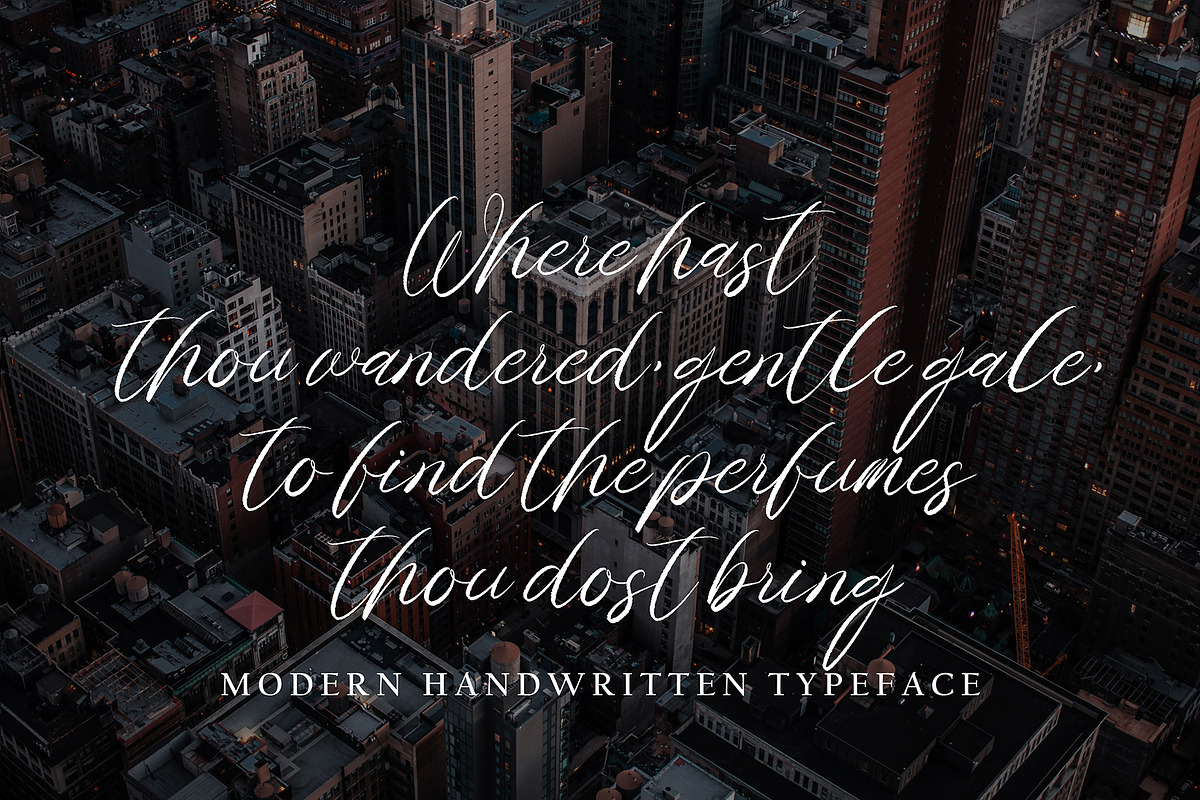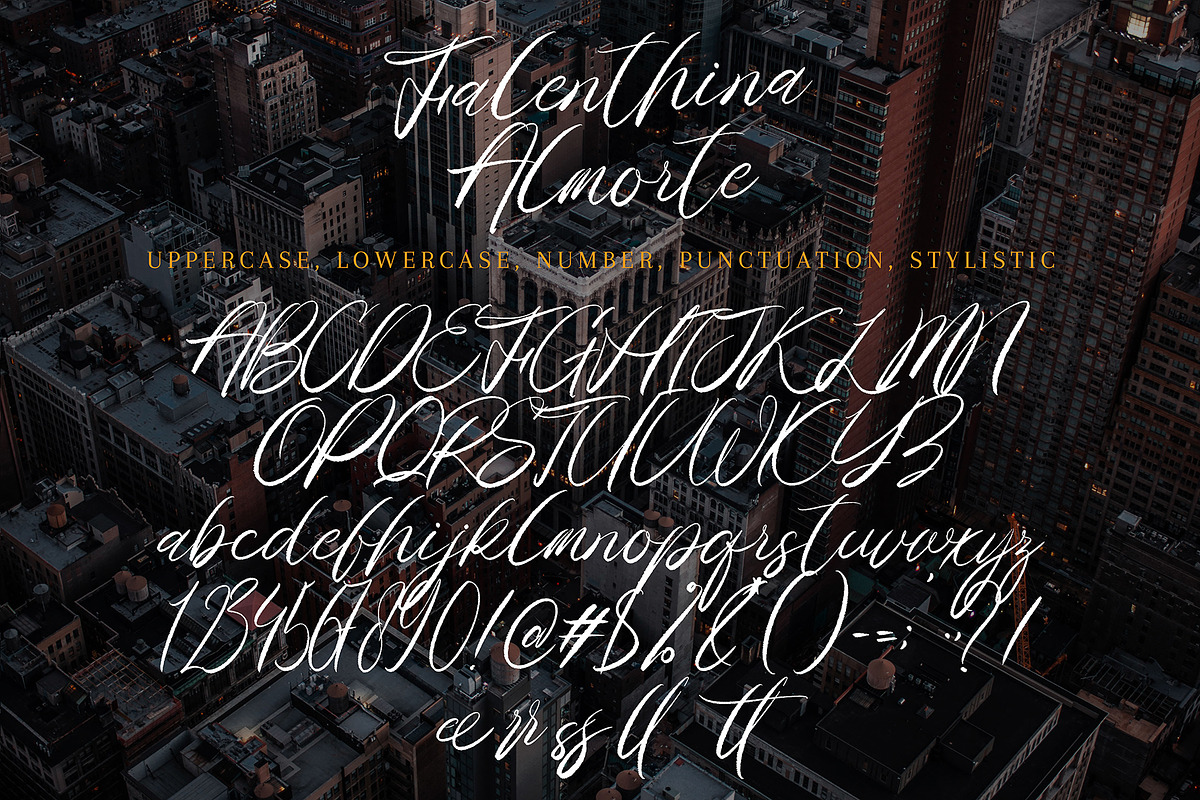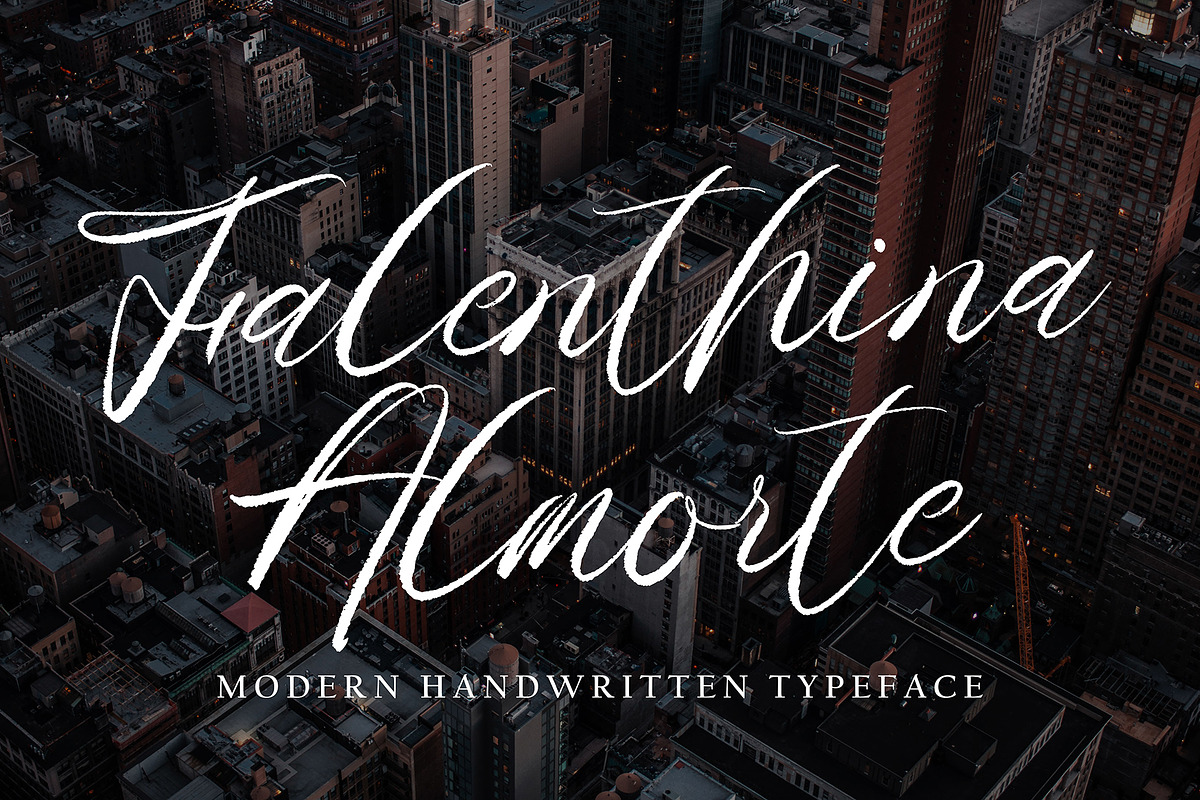
Falenthina Almirte
Falenthina Almirte with new style, this font will perfect for many different project ex: quotes, logo, blog header, poster, banding, letter, invitation, stationery, etc...